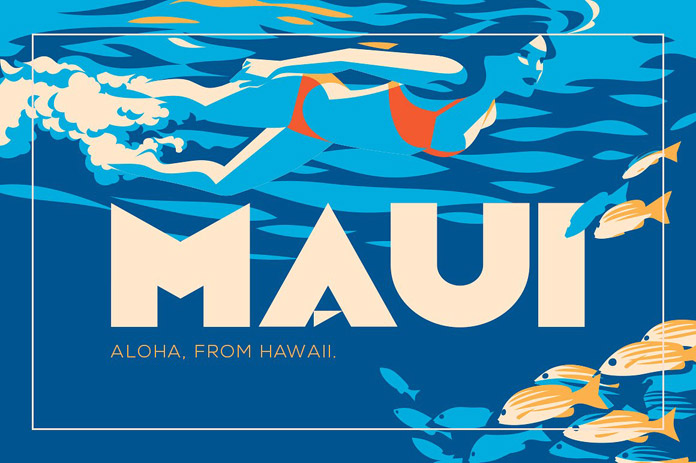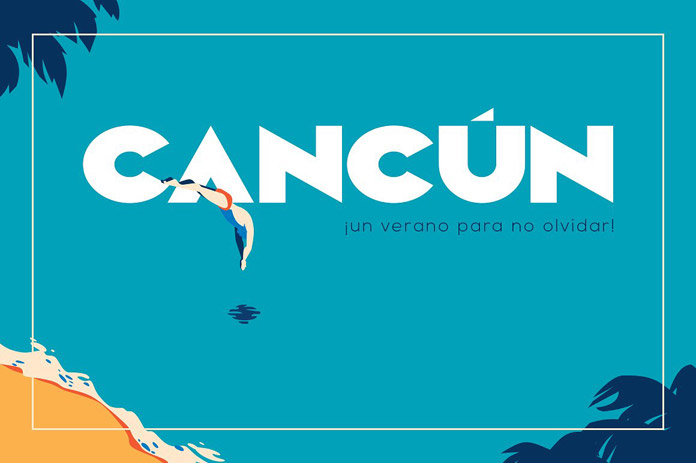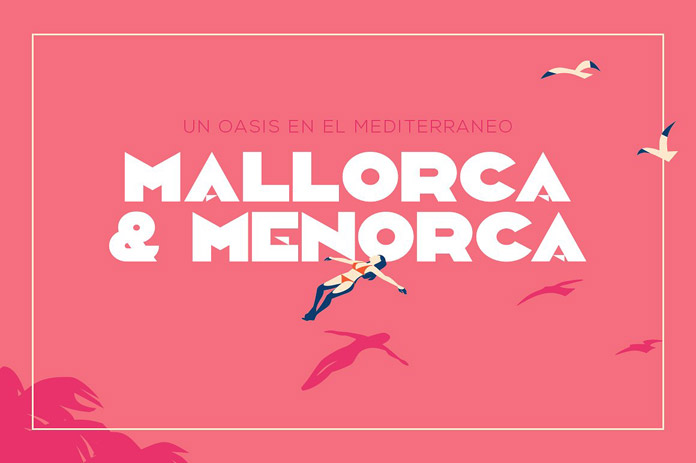
Camar, a stylish typeface for display use.
Designed in 2017 by Juan Miguel with a strong influence from vintage designs and typography, it’s a bold, clean, and simple all caps display font. It is well suited for short and strong headlines. You can get the Camar vintage font as OTF file. It contains 187 glyphs plus some international characters. Feel free to have a look at the images below or click on the following link to purchase the font for a very low budget on Creative Market.